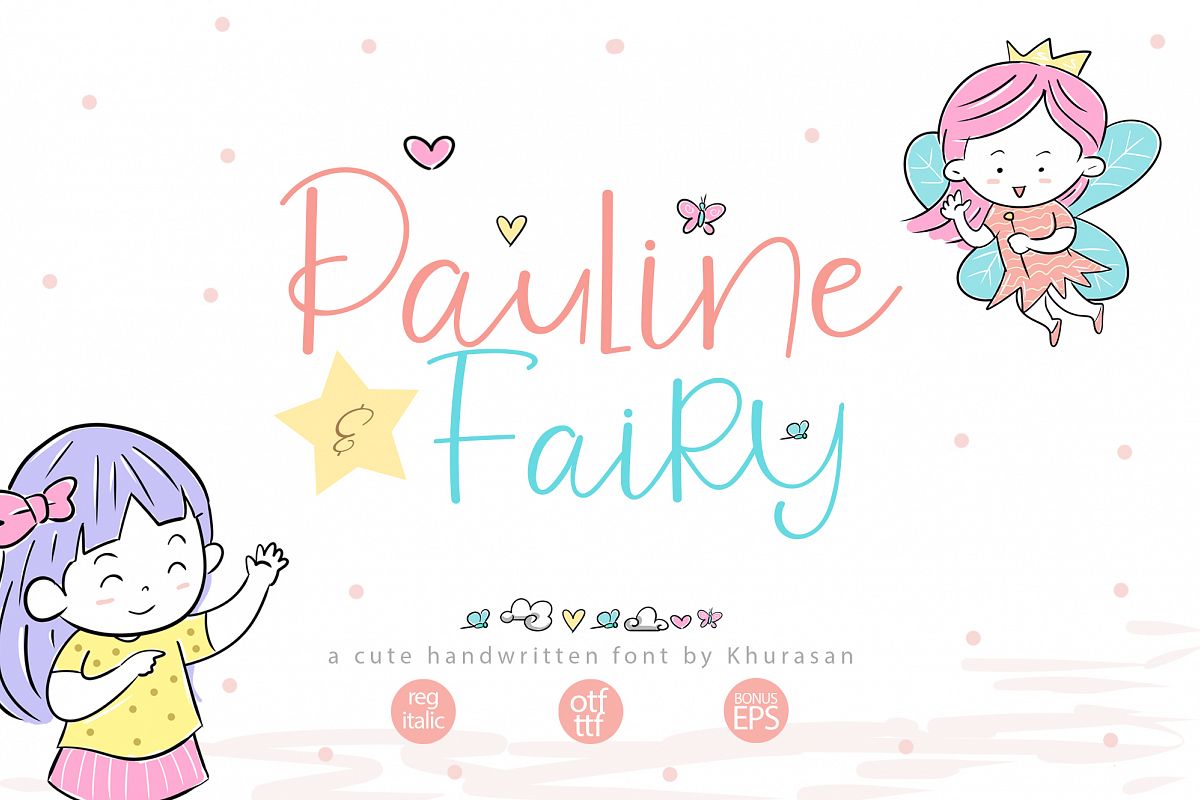
Pauline and Fairy font a display and script typeface awesome character with 2 different style, regular and italic. Pauline and Fairy font support multilanguage. Pauline and Fairy font it’s perfect for namecard, poster, logo, magazine, cover, banner, tshirt and headers, or even large-scale artwork.